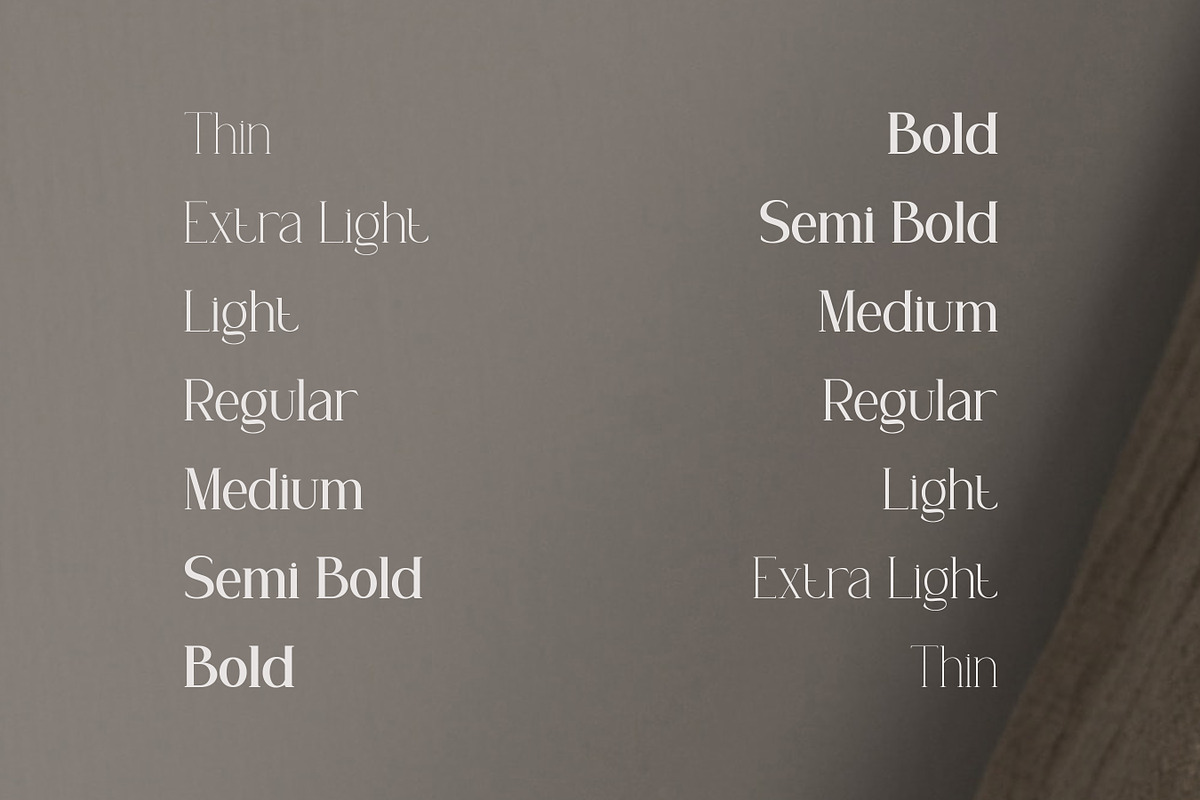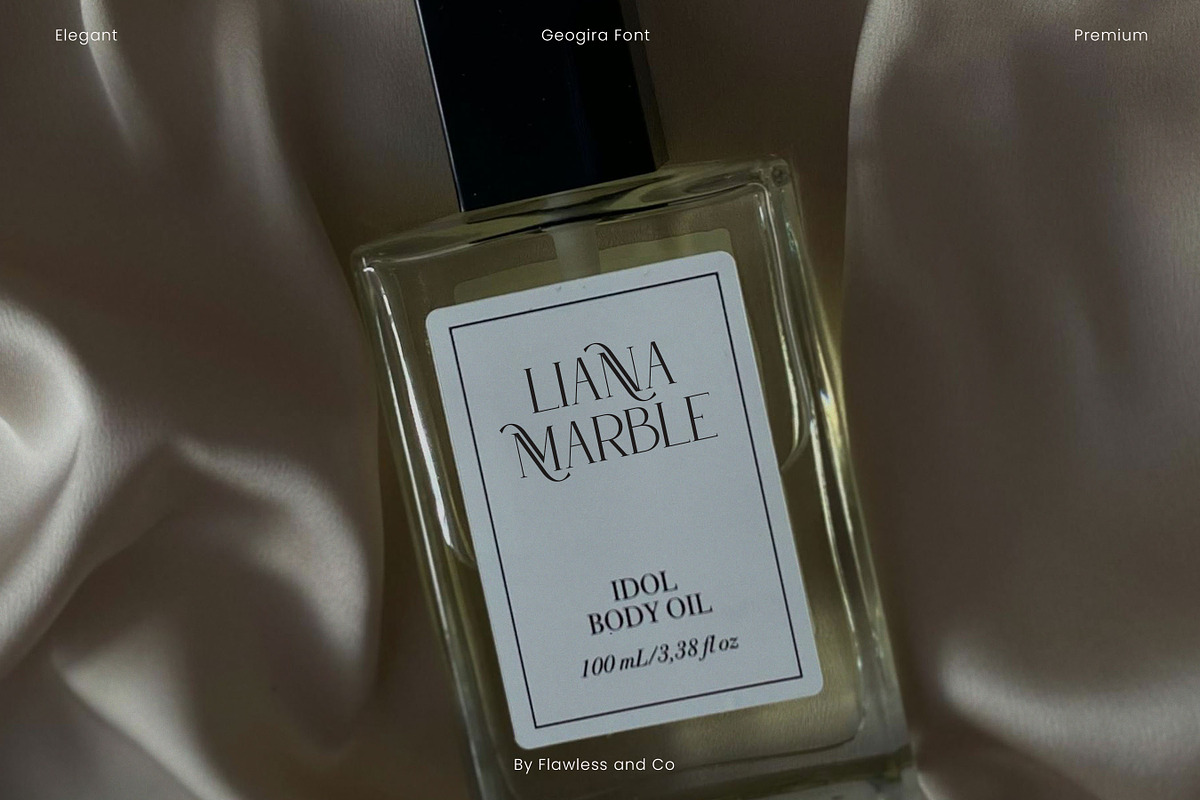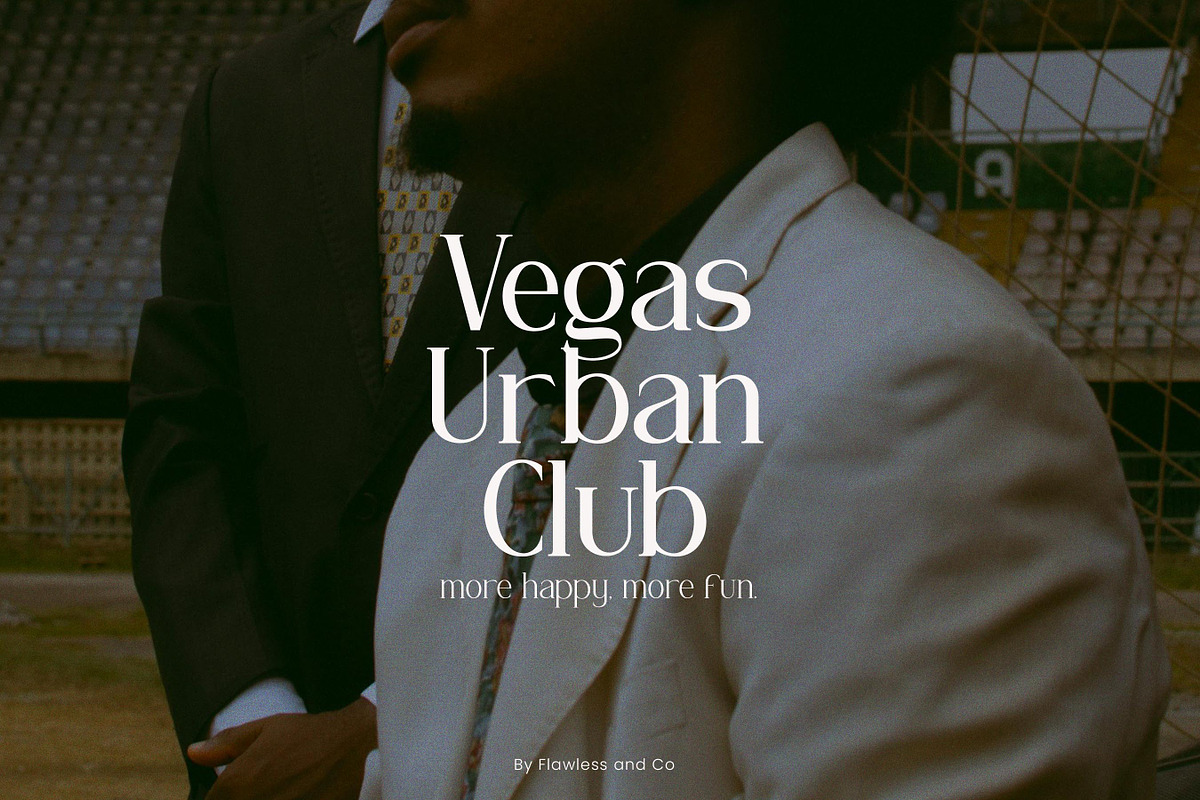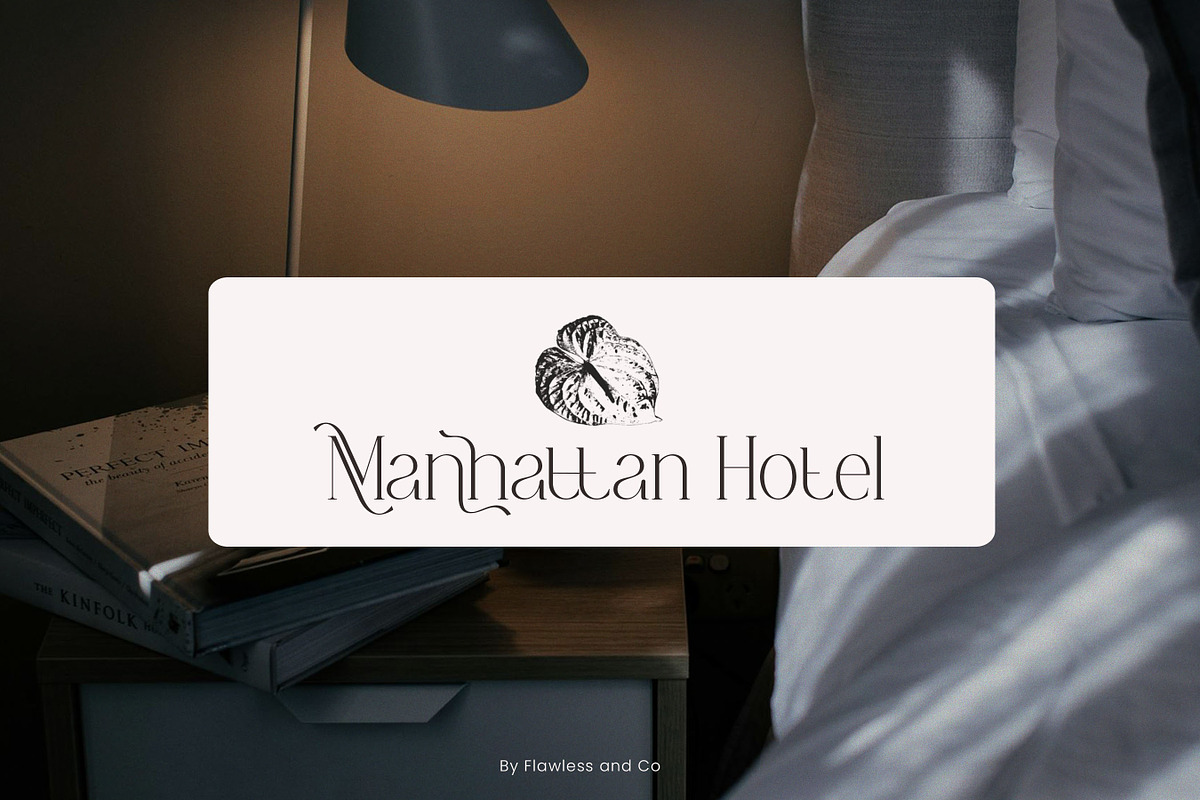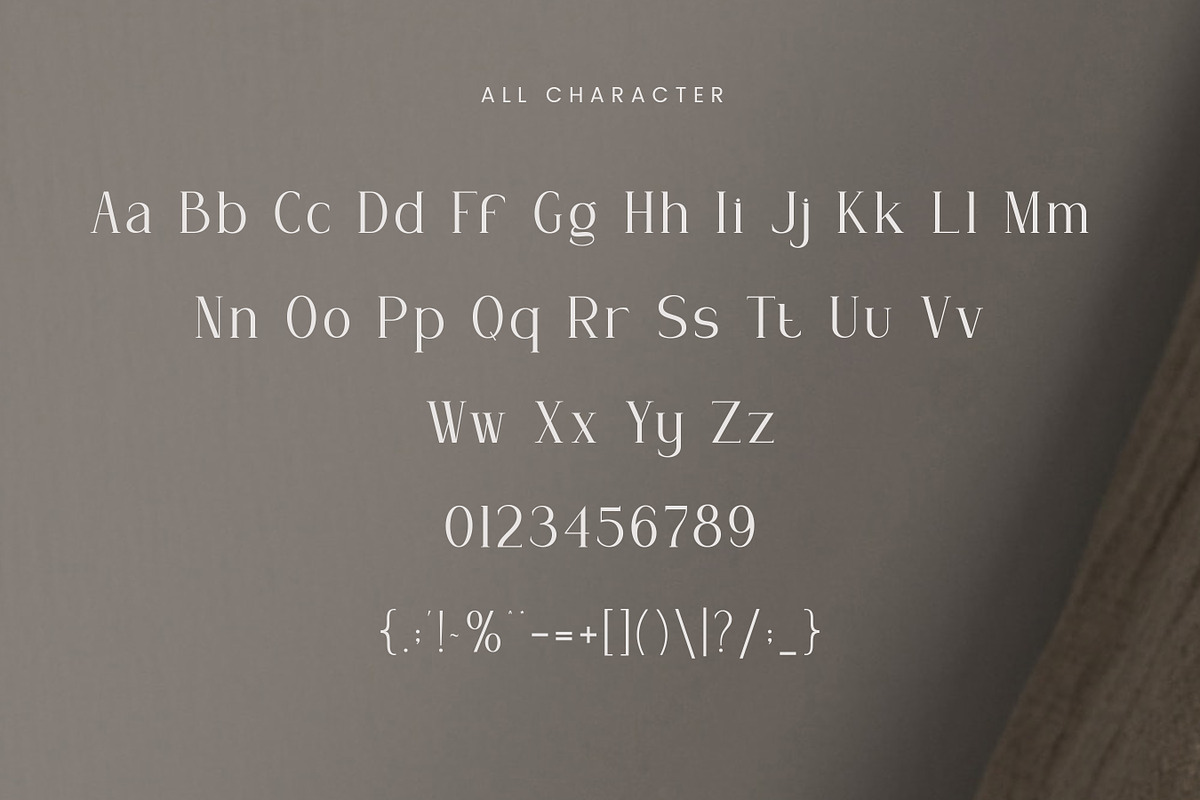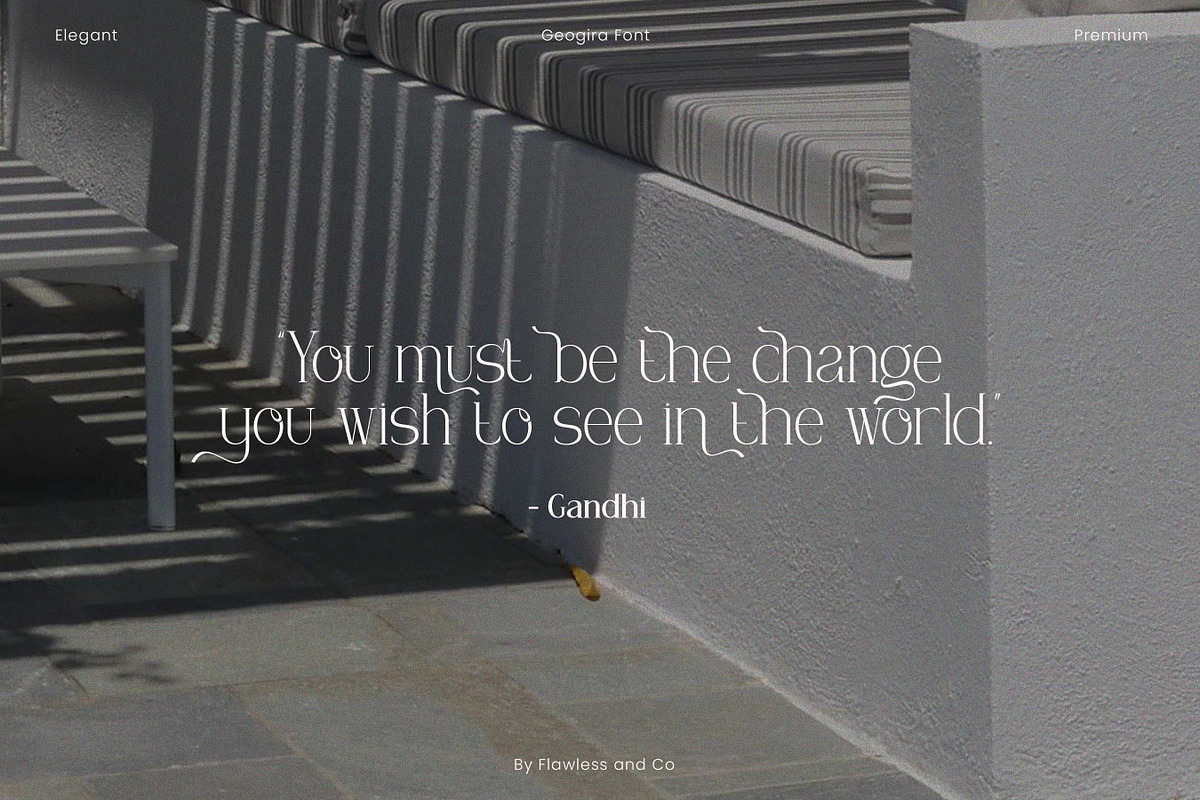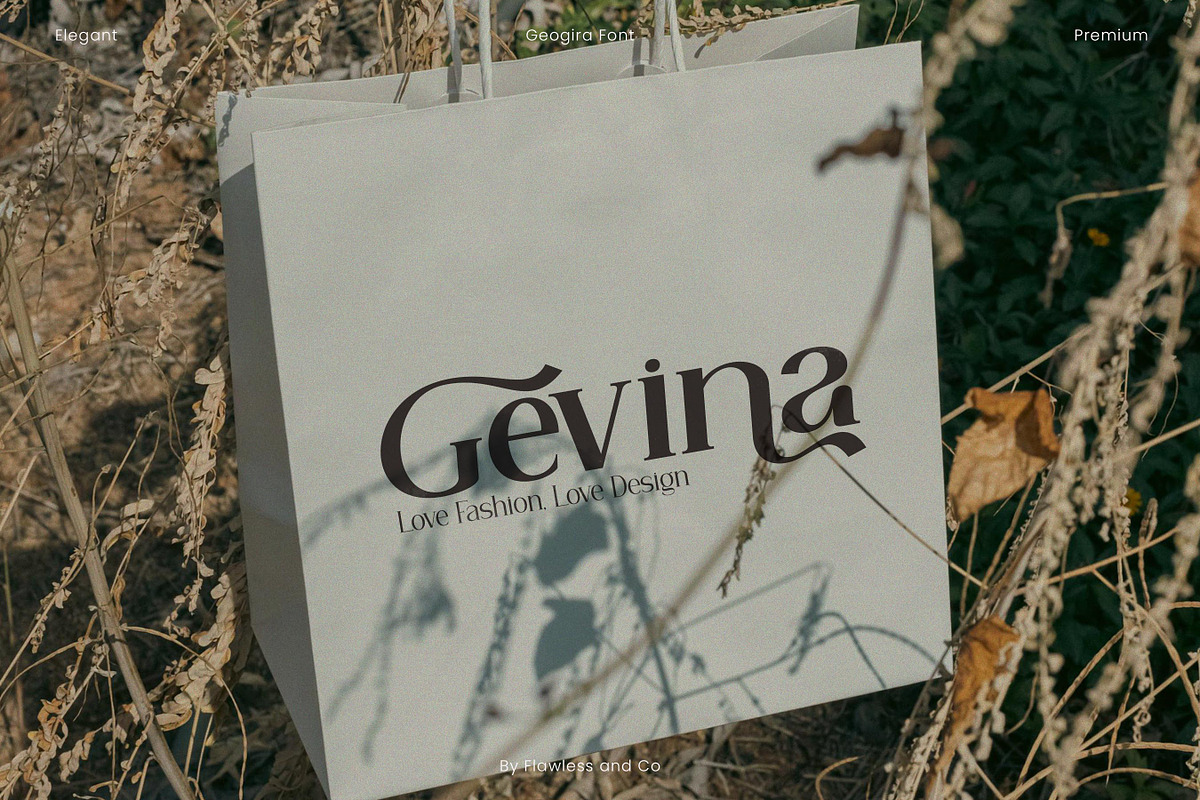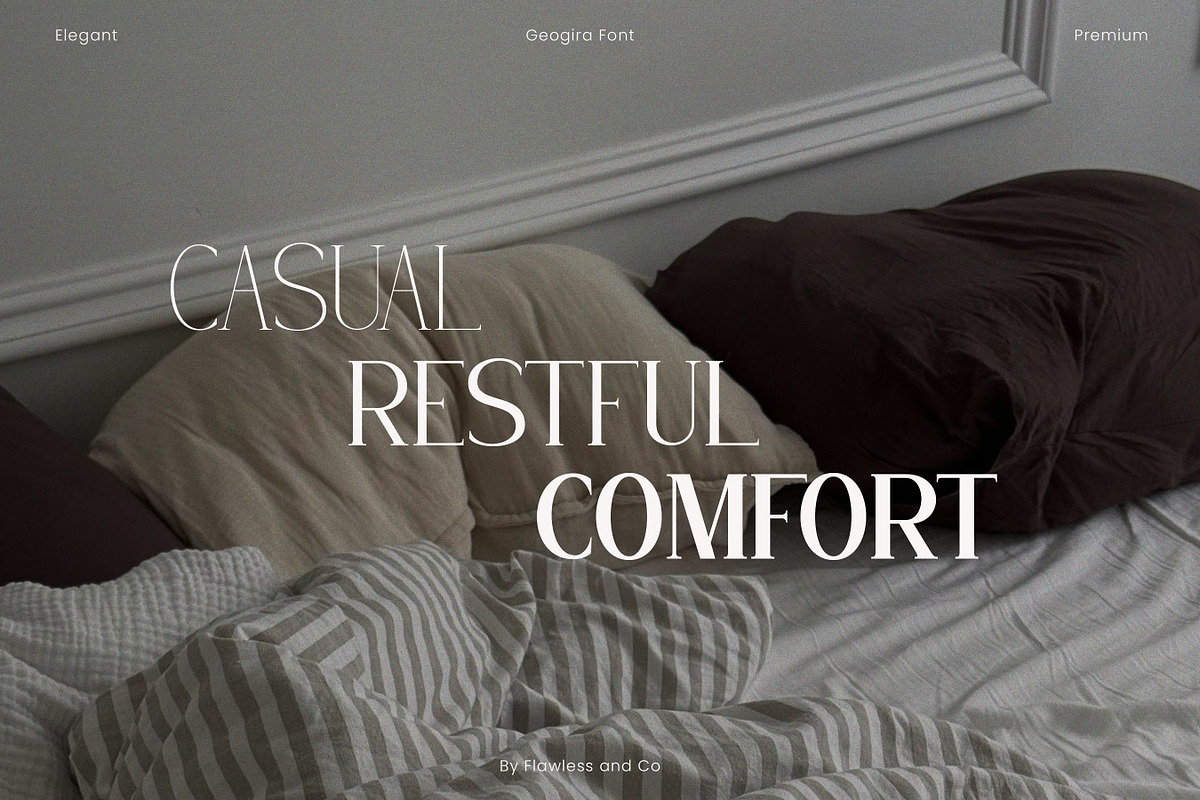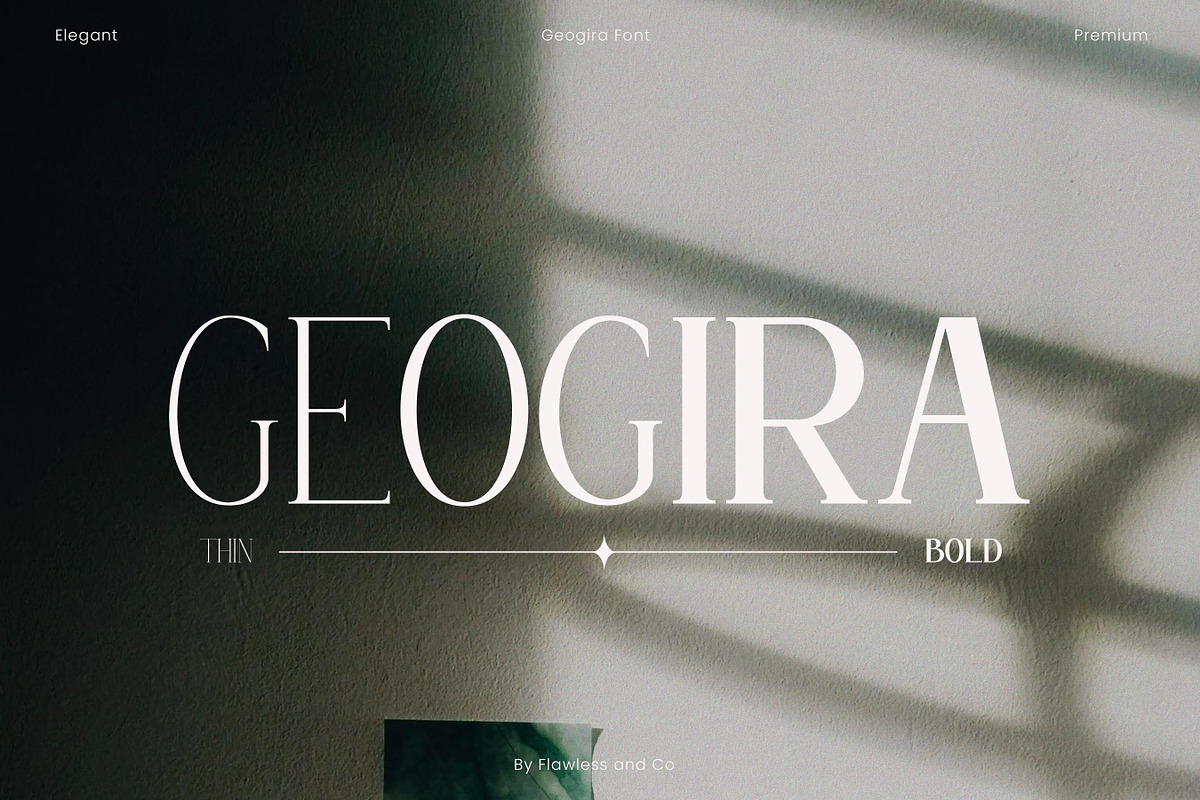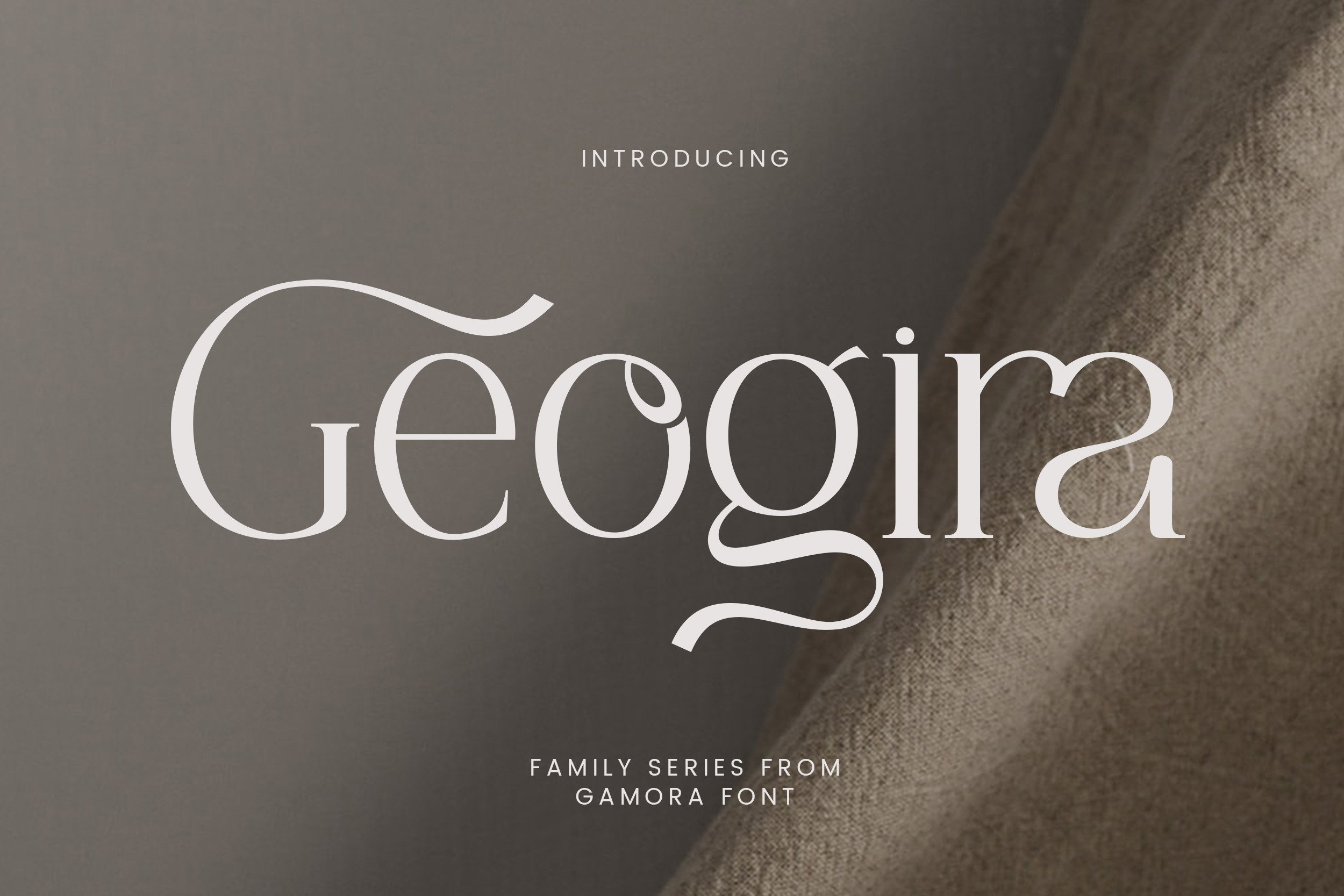
Geogira - Family Serif Typeface
Introducing "Geogira Family Font". Dive into the diverse world of typography with "Geogira", a comprehensive typeface that goes beyond conventional limits. This font family is a symphony of styles, offering Thin, Extra Light, Light, Regular, Medium, Semi-Bold, and Bold variants, allowing you to craft designs that resonate with precision and personality. Explore the Versatility of The Geogira Family Series Font!
Multilingual Uppercase alphabet A-Z Lowercase alphabet a-z Alternate Character Numbers 0-9 Some punctuation